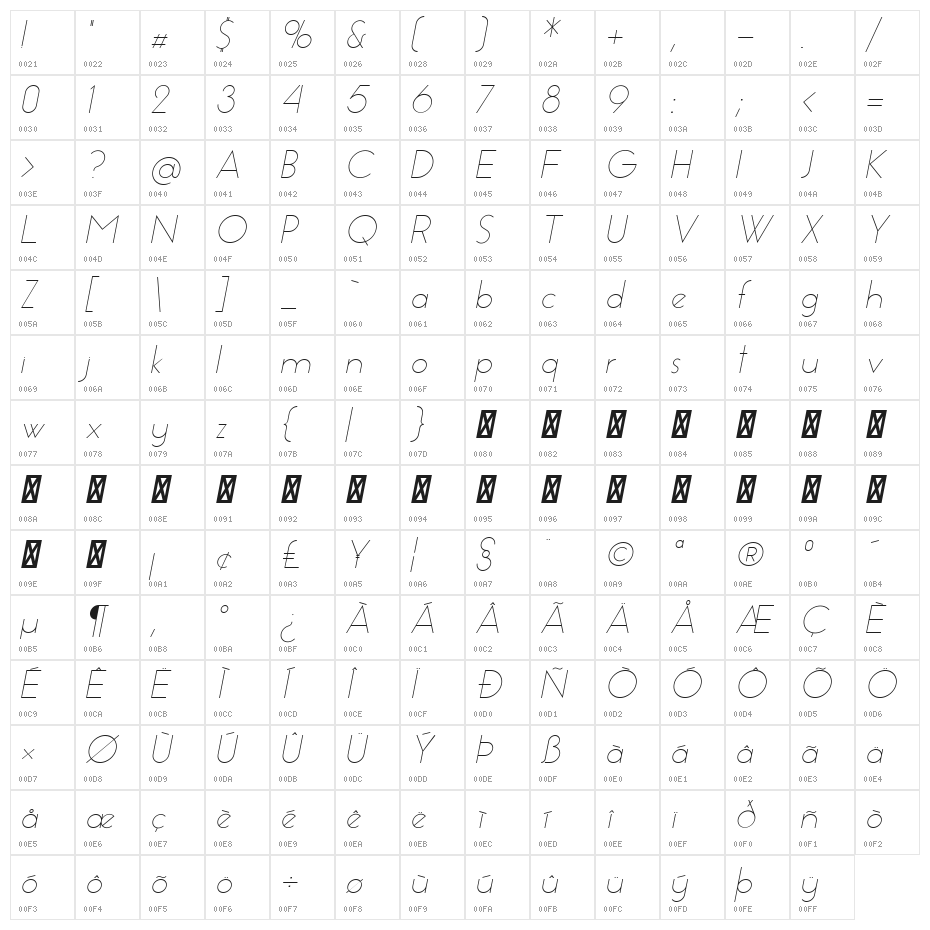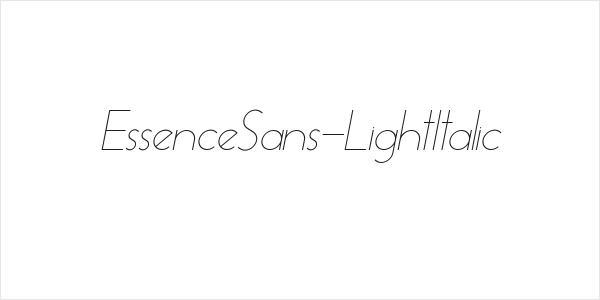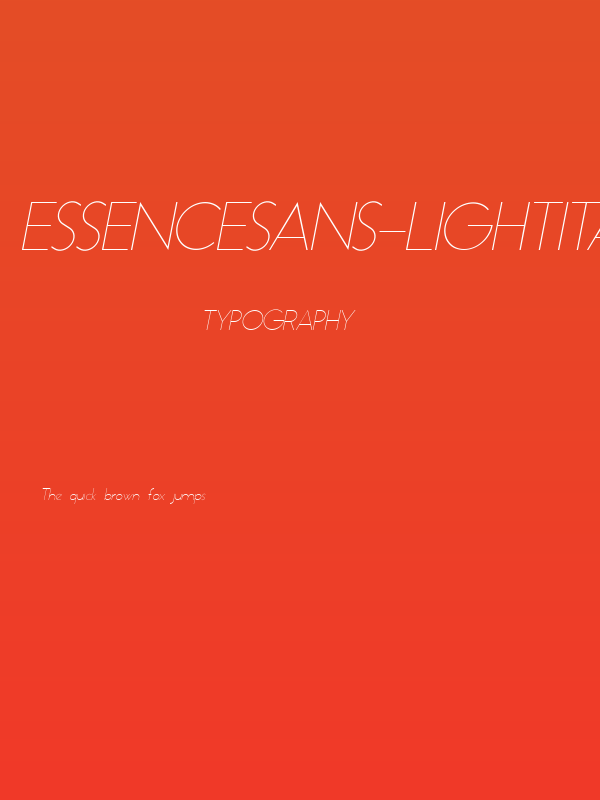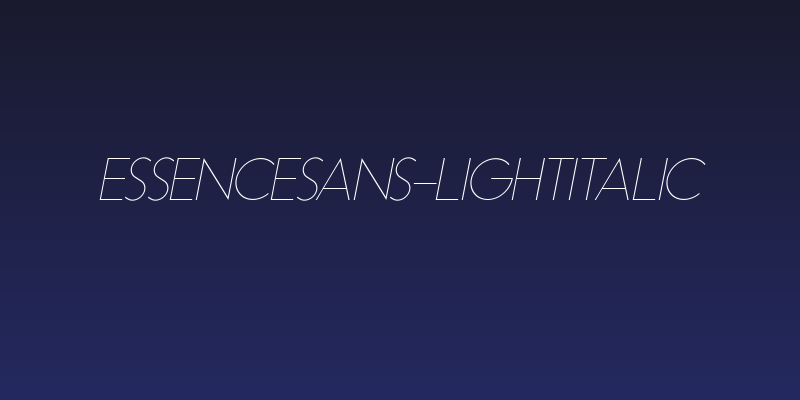
EssenceSans-LightItalic Font
EssenceSans-LightItalic Description
This font features a sleek and elegant design with a light and airy feel. The characters are slightly slanted, giving it an italicized appearance. The strokes are thin and consistent, contributing to a modern and sophisticated look. The uppercase and lowercase letters are well-proportioned, and the numerals are clear and easy to read. Special characters are included, maintaining the font's overall aesthetic. Its minimalistic style makes it versatile for various design applications.
| Proposed Projects | Ideal for fashion magazines, luxury branding, modern websites, and elegant invitations. |